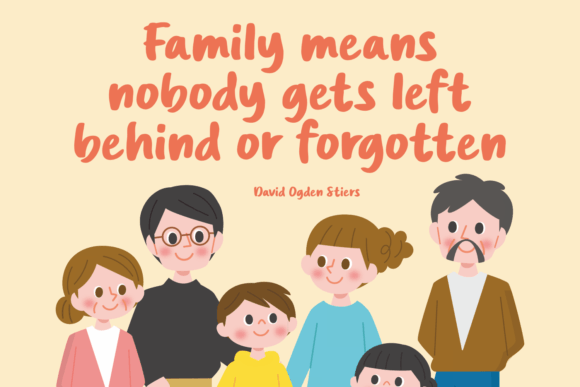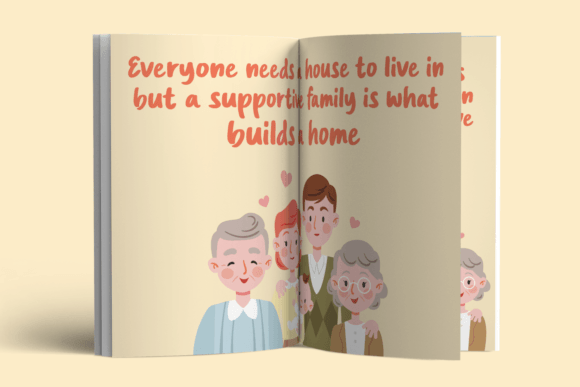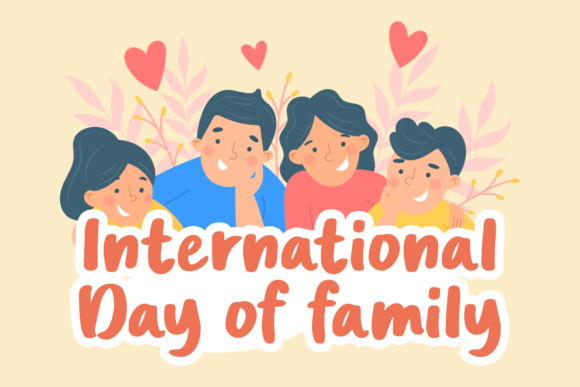
Introducing Great Family Font: The Perfect Addition to Your Design Projects
Are you a designer or crafter looking for a font that can bring a personal touch to your creative projects? Look no further than the Great Family font, a thick and beautiful handwritten font that is sure to make your designs stand out. With its bold characters and friendly rhythm, Great Family is an ideal candidate for a wide range of design projects.
What Makes Great Family Font So Special?
Great Family font is a unique and versatile font that offers a range of benefits for designers and crafters. Here are just a few of the things that make it so special:
- Thick and Beautiful Handwritten Style: Great Family font features a thick and beautiful handwritten style that is perfect for creating eye-catching designs. The font’s bold characters are sure to grab attention and make your designs stand out.
- Bold Characters: The bold characters in Great Family font make it perfect for use in headlines, titles, and other applications where you want to make a big impact.
- Friendly Rhythm: The friendly rhythm of Great Family font makes it easy to read and understand, making it perfect for use in body text and other applications where readability is important.
- Versatility: Great Family font is a versatile font that can be used in a wide range of design projects, from branding and advertising to packaging and more.
How to Use Great Family Font in Your Design Projects
Great Family font is easy to use and can be incorporated into a wide range of design projects. Here are a few ideas to get you started:
- Branding and Advertising: Use Great Family font to create eye-catching logos, advertisements, and marketing materials that will help your brand stand out.
- Packaging Design: Great Family font is perfect for use in packaging design, where bold and eye-catching typography can help your product stand out on store shelves.
- Stationery and Invitations: Use Great Family font to create beautiful and unique stationery and invitations that will make a lasting impression.
- Digital Design: Great Family font can also be used in digital design projects, such as website design, social media graphics, and more.
Tips for Getting the Most Out of Great Family Font
Here are a few tips for getting the most out of Great Family font:
- Experiment with Different Sizes and Colors: Great Family font looks great in a variety of sizes and colors, so don’t be afraid to experiment and find the combination that works best for your design.
- Pair it with Other Fonts: Great Family font can be paired with other fonts to create a unique and interesting look. Try pairing it with a sans-serif font for a bold and modern look.
- Use it Consistently: To get the most out of Great Family font, use it consistently across all of your design projects. This will help to create a cohesive and recognizable brand identity.